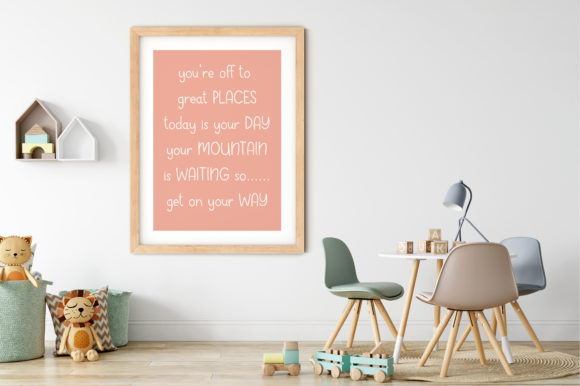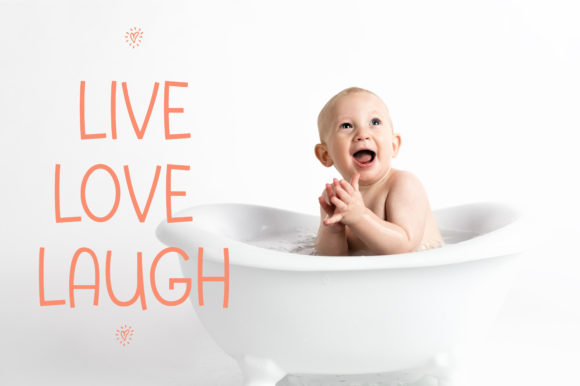
Moon Sailor Font
db-ku.com - Script & Handwritten -- Moon Sailor is a cute and playful handwritten font. Suitable for crafting projects or branding, it will add a warm and personal touch to any project.